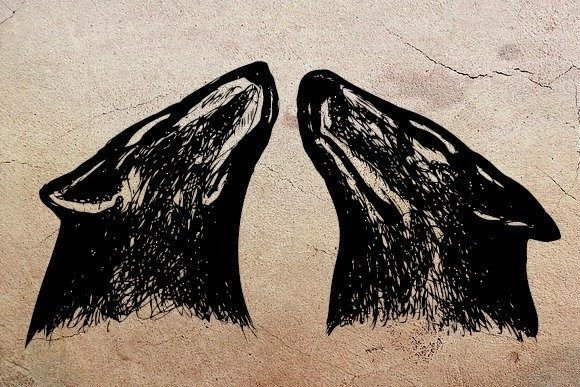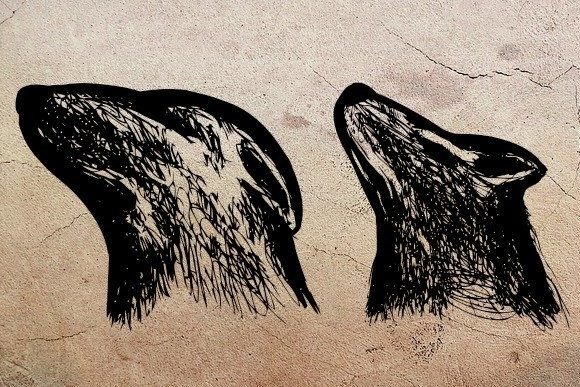
Dogs Font: The Paw-fect Addition to Your Designs
Are you a designer or crafter looking for a unique and fun font to add to your creations? Look no further than Dogs Font! This awesome dingbat is perfect for a variety of projects, from postcards and flyers to stickers and more. In this article, we’ll take a closer look at Dogs Font and explore how you can use it to take your designs to the next level.
What is Dogs Font?
Dogs Font is a dingbat font that features a collection of adorable dog illustrations. Each character in the font is a different dog breed, ranging from a cute little Chihuahua to a playful Golden Retriever. The font is made up of simple, yet detailed illustrations that are sure to delight dog lovers of all ages.
Why Use Dogs Font?
So why should you use Dogs Font in your designs? Here are just a few reasons:
- Unique and eye-catching: Dogs Font is a one-of-a-kind dingbat that will add a touch of personality to any design. Whether you’re creating a postcard, flyer, or social media graphic, this font is sure to grab attention.
- Perfect for dog lovers: If you’re creating designs for dog owners or enthusiasts, Dogs Font is a must-have. The font features a variety of dog breeds, making it easy to find the perfect illustration for your project.
- Versatile: Dogs Font can be used in a variety of projects, from print materials like postcards and flyers to digital files like stickers and social media graphics.
How to Use Dogs Font
Using Dogs Font is easy! Here are a few tips to get you started:
- Choose your dog: With Dogs Font, each character is a different dog breed. Simply type the letter or number corresponding to the dog you want to use, and it will appear in your design.
- Experiment with sizes and colors: Dogs Font can be used in a variety of sizes and colors. Try experimenting with different sizes and colors to add visual interest to your design.
- Combine with other fonts: Dogs Font pairs well with a variety of other fonts. Try combining it with a bold font for a fun and playful look.
Design Ideas Using Dogs Font
- Postcards: Create a postcard featuring a cute dog illustration from Dogs Font. Add a fun message or caption to make it extra special.
- Flyers: Use Dogs Font to create eye-catching flyers for dog-related events or businesses.
- Stickers: Create stickers featuring individual dog illustrations from Dogs Font. These make great decorations for laptops, water bottles, and more.
- Social media graphics: Use Dogs Font to create fun and engaging social media graphics. Try creating a series of posts featuring different dog breeds from the font.
Dogs Font is a fun and unique dingbat that is perfect for designers and crafters. With its adorable dog illustrations and versatile design, it’s easy to see why this font is a must-have for any dog lover. Whether you’re creating postcards, flyers, stickers, or social media graphics, Dogs Font is sure to add a touch of personality to your designs. So why wait? Download Dogs Font today and start creating your own paw-some designs!